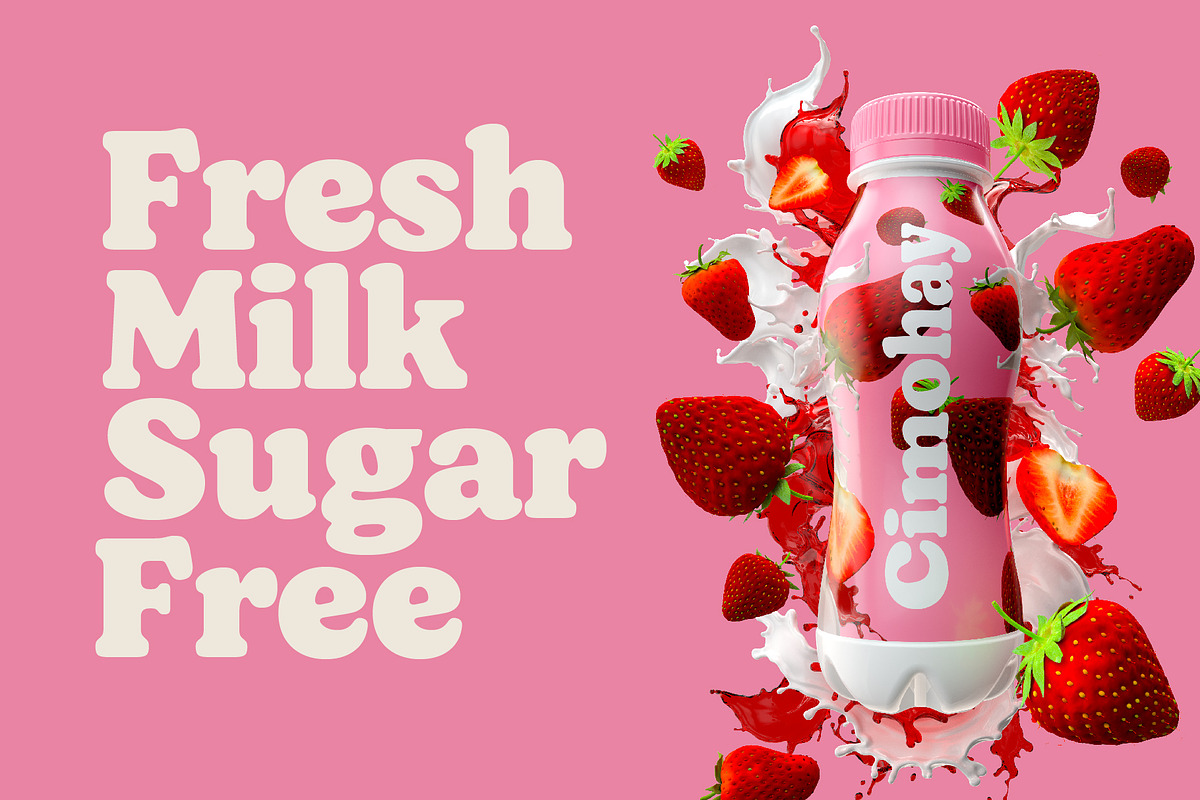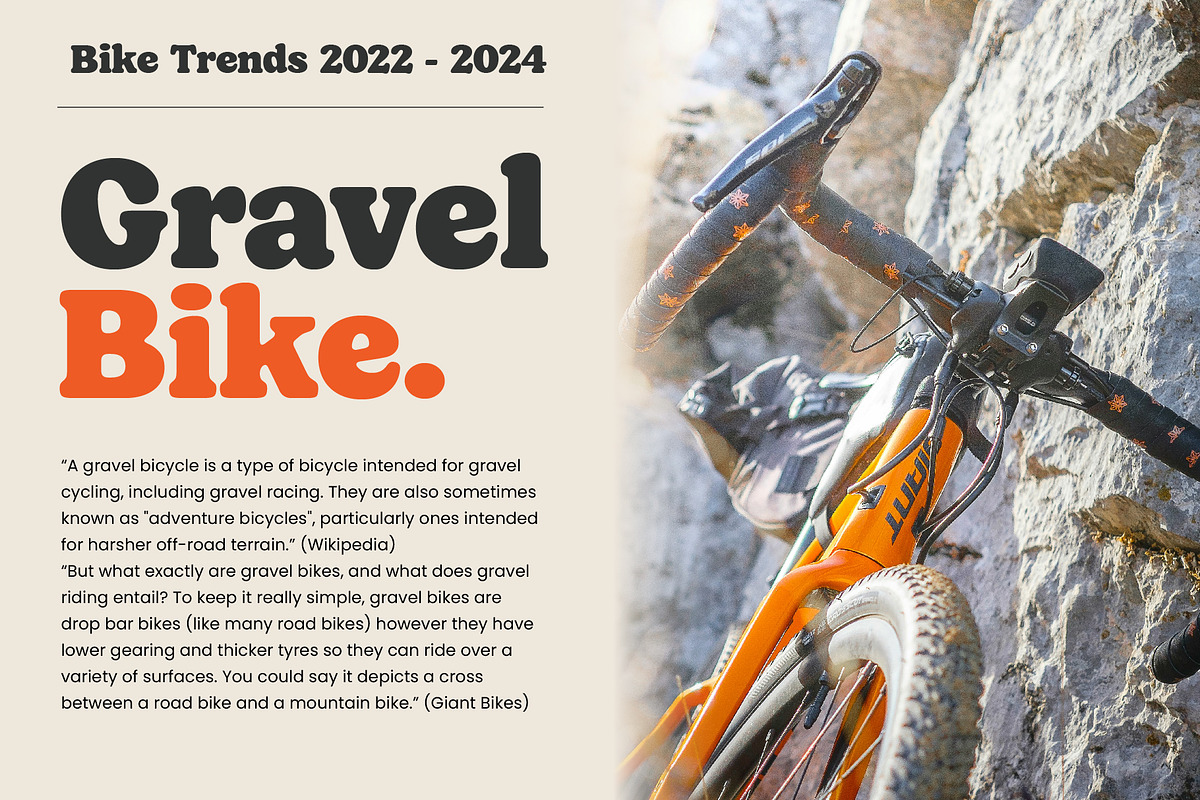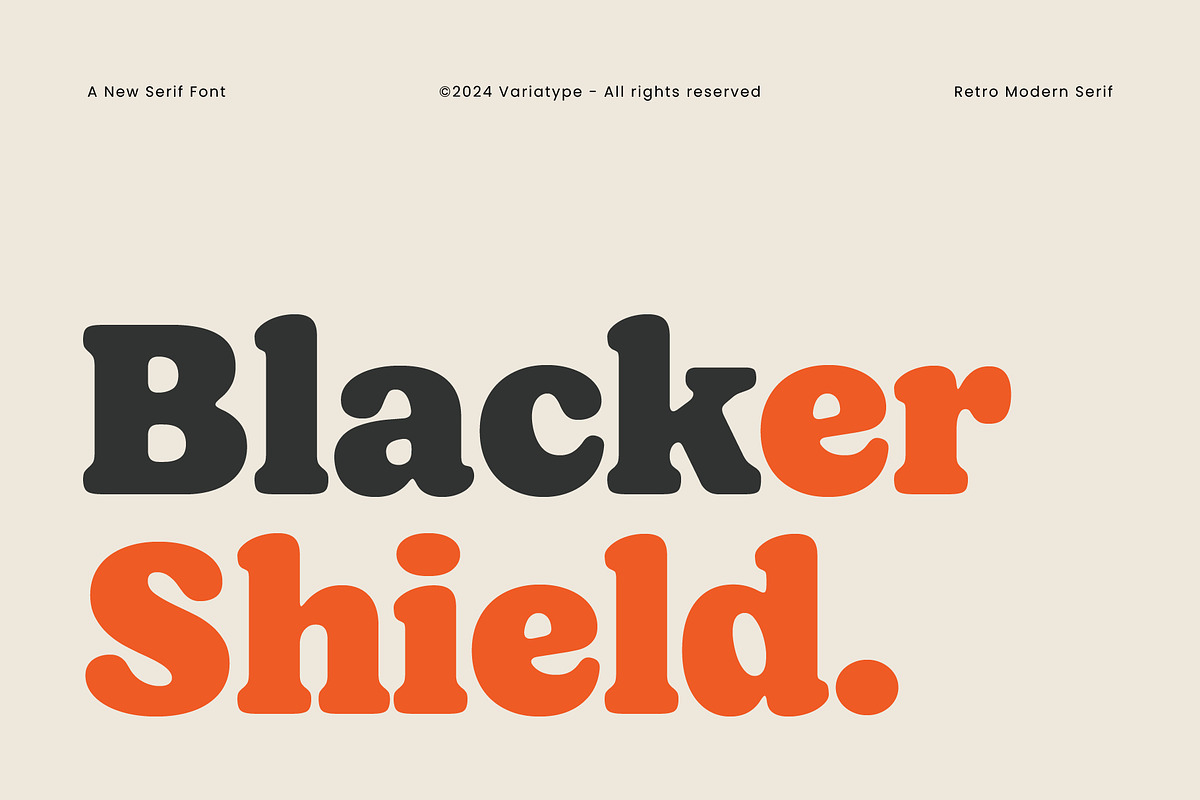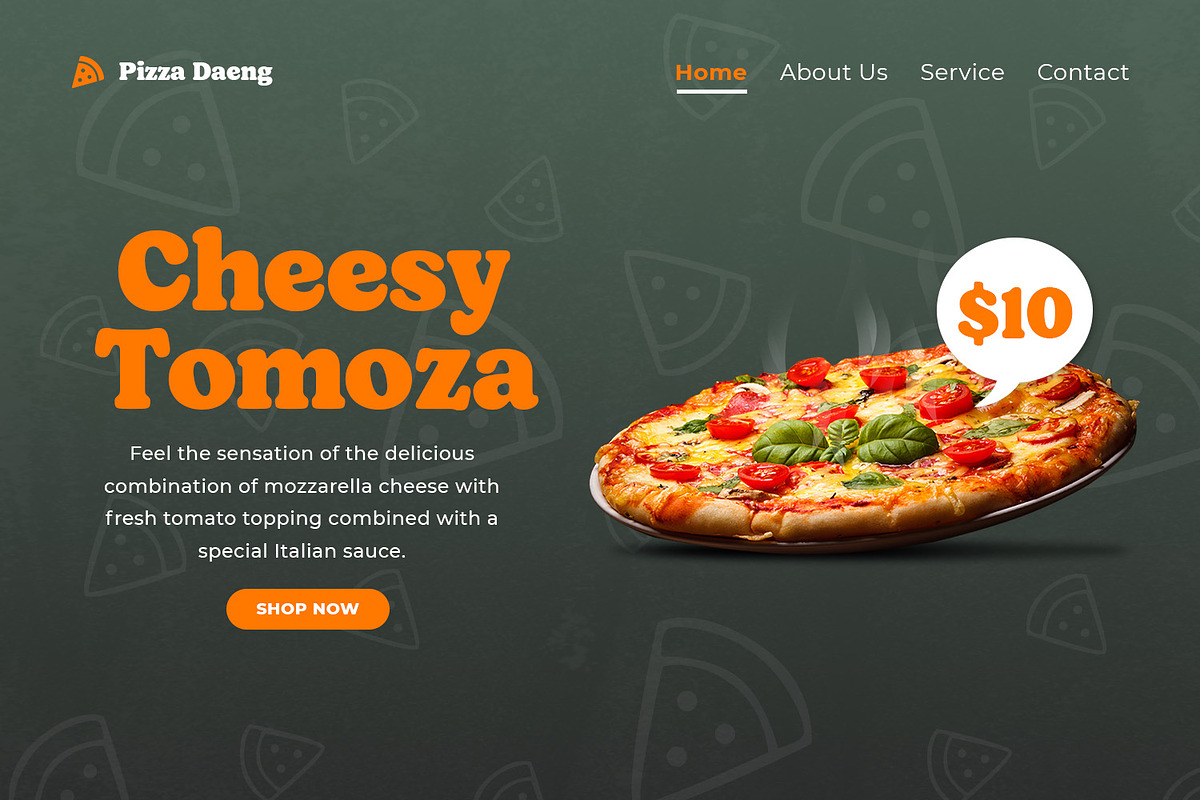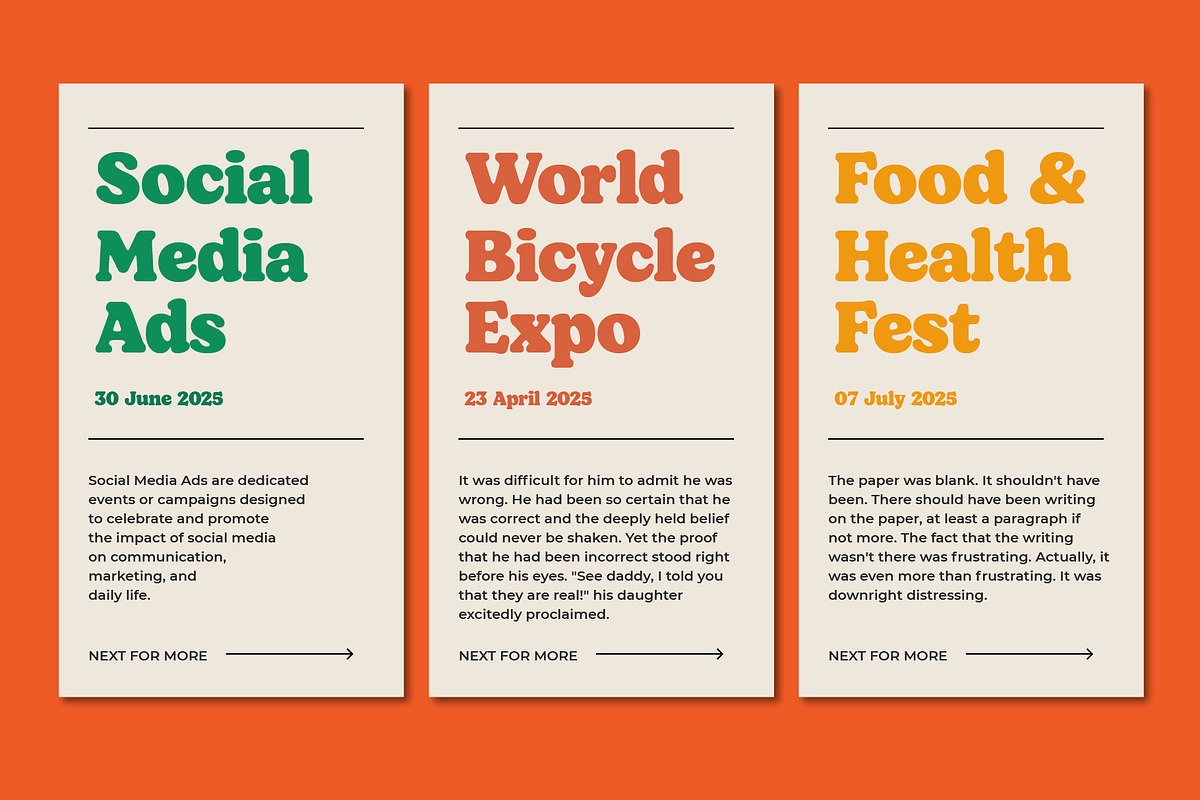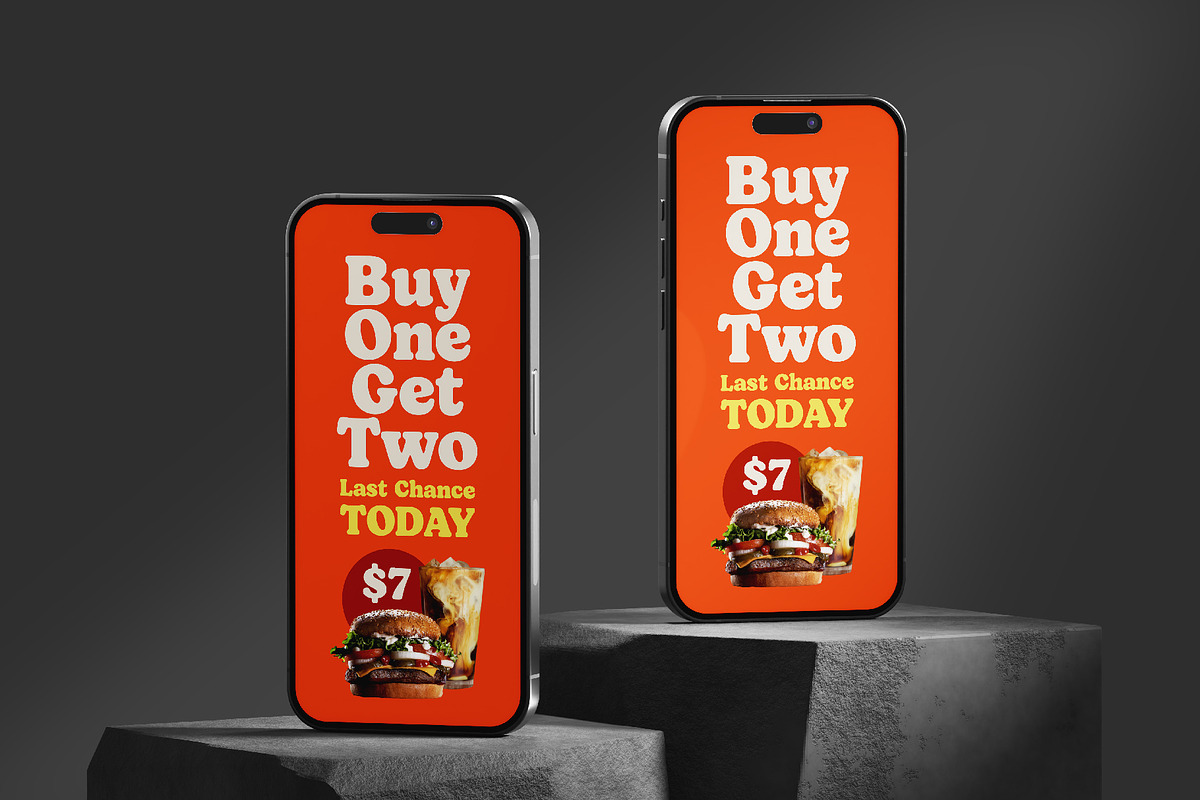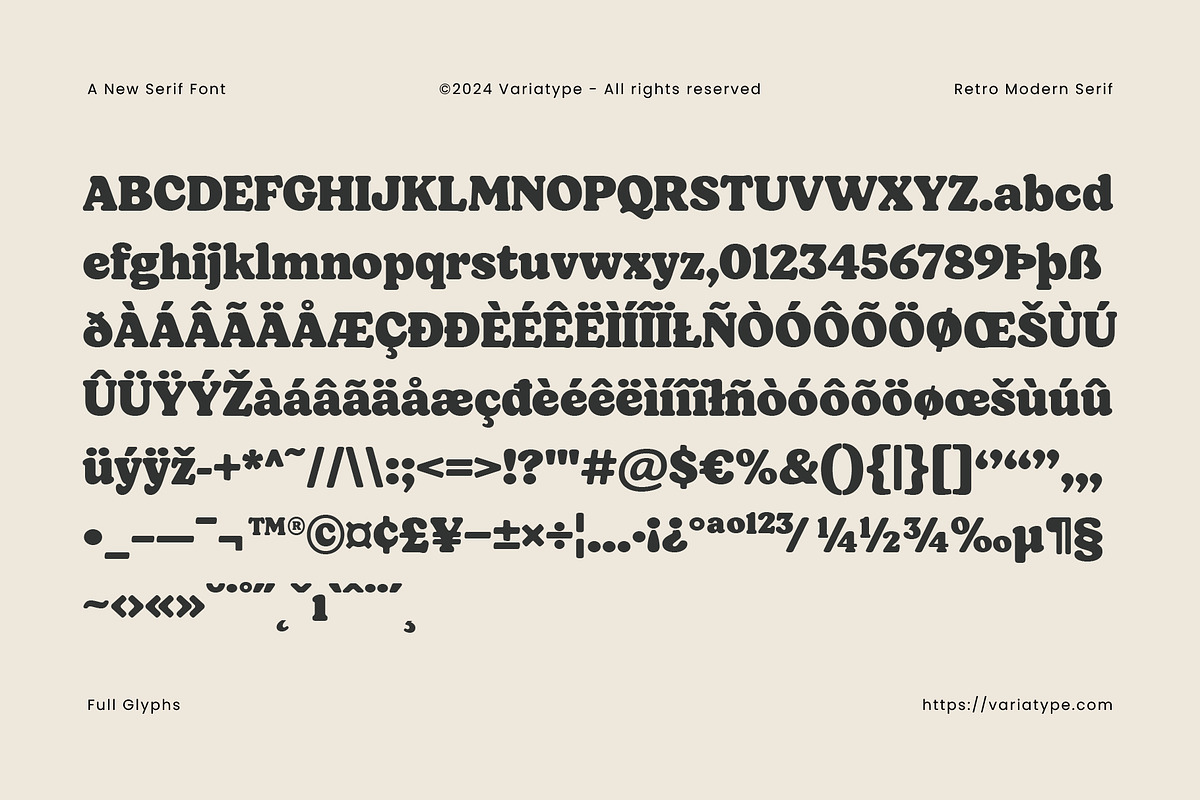
Blacker Shield - Retro Modern Serif
Introducing Blacker Shield, a Retro Modern Serif font that marries elegance with contemporary flair. Its bold, distinctive serifs and clean lines evoke a sense of classic sophistication while maintaining a fresh, modern appeal. Perfect for high-impact headlines, stylish branding, and standout designs, Blacker Shield brings a touch of vintage charm to today’s aesthetic. Whether crafting a logo, designing a poster, or adding character to your latest project, this font ensures your message is both memorable and stylish.
FONT FEATURES
Additional Accents
68 Languages
Kerning